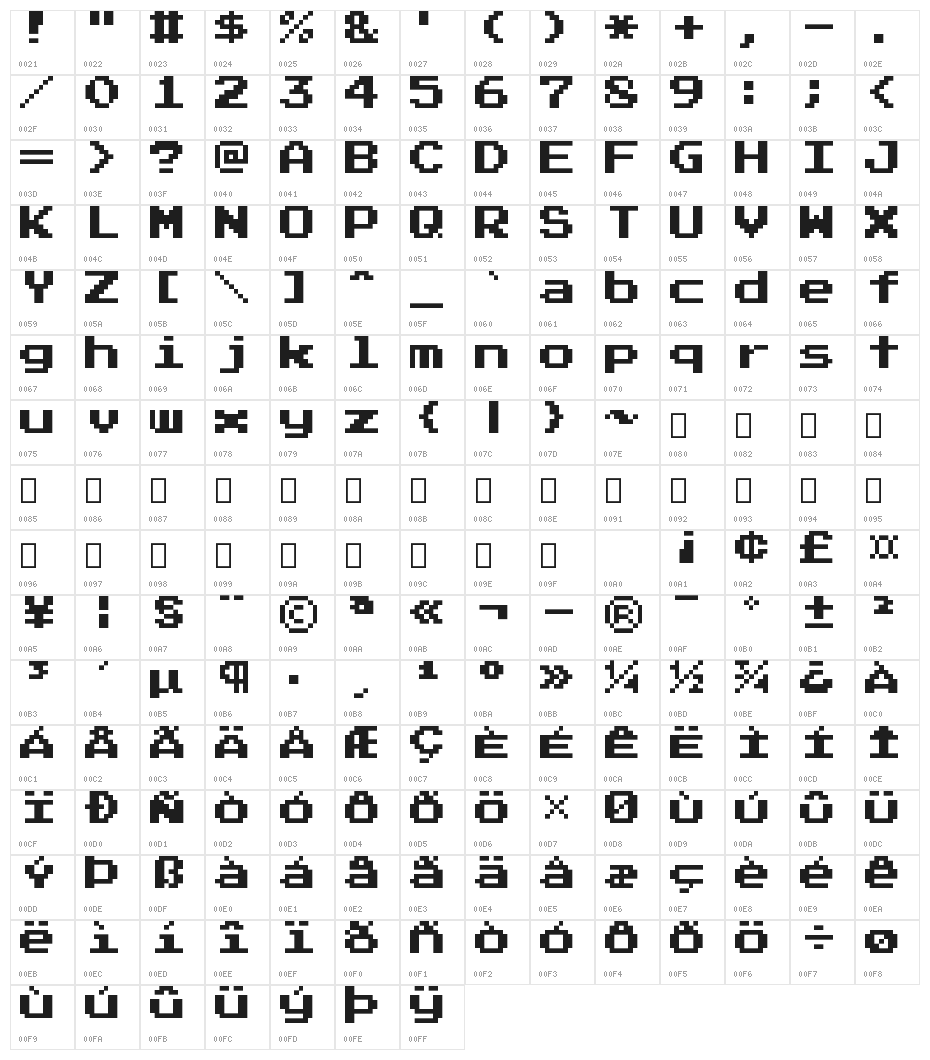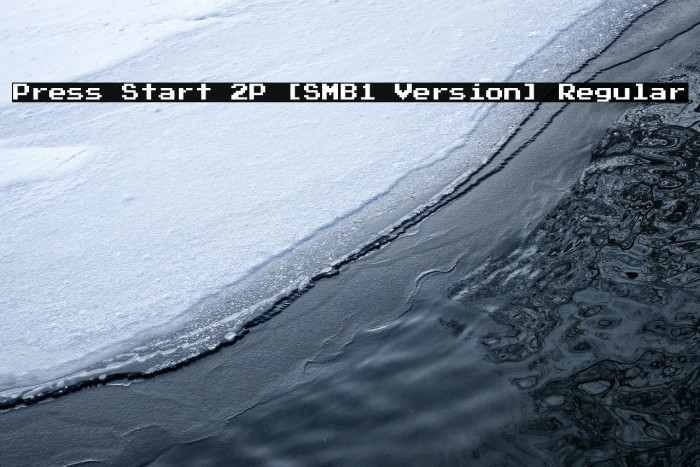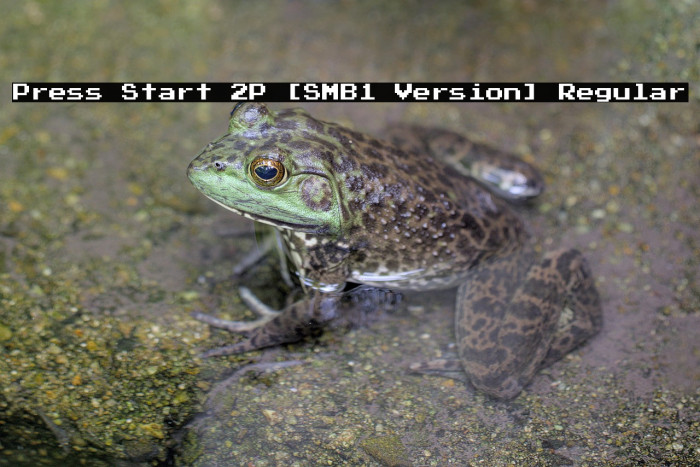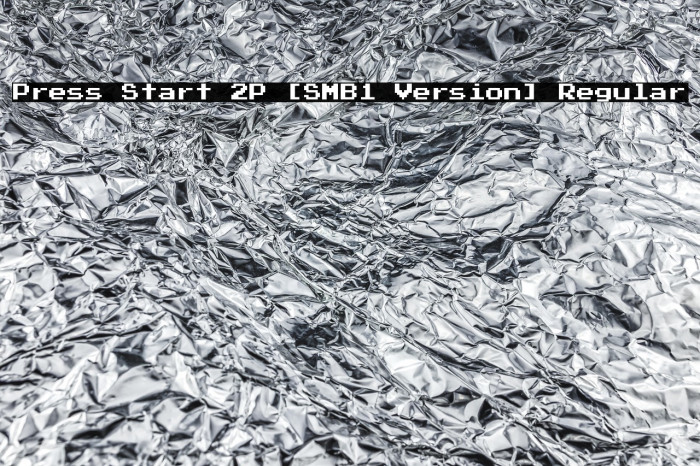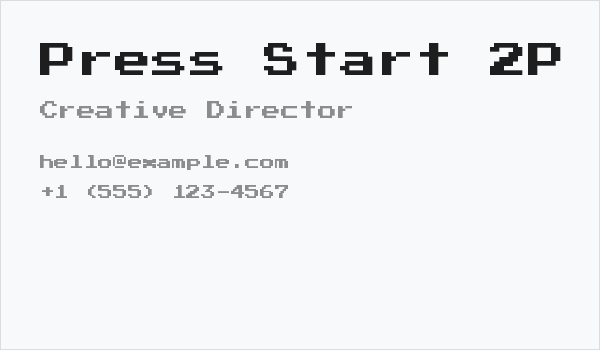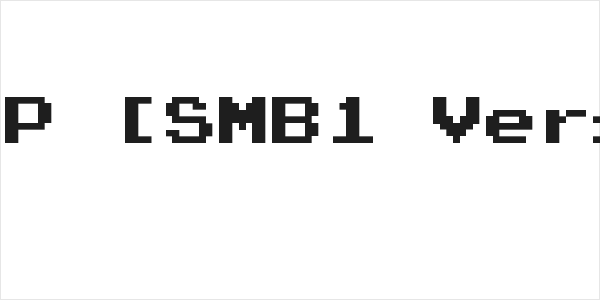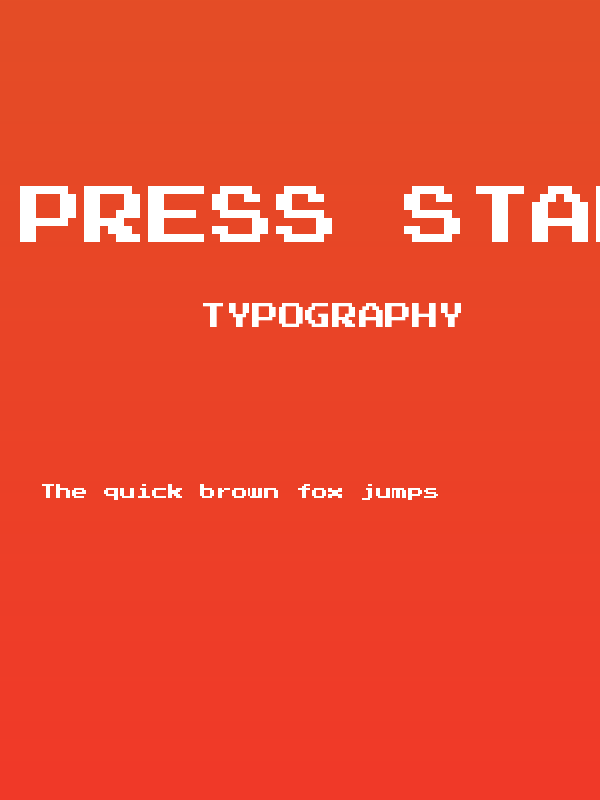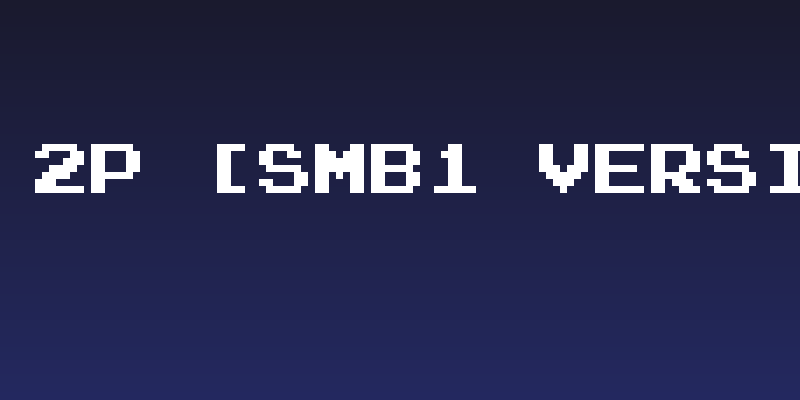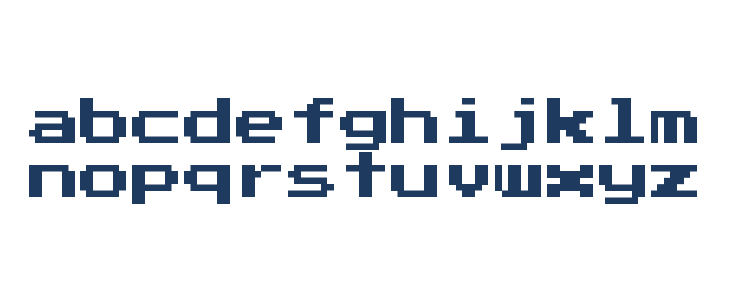
Press Start 2P [SMB1 Version] Regular Font
Press Start 2P [SMB1 Version] Regular Description
This font embodies a retro, pixelated style reminiscent of early video game graphics. Its blocky, monospaced characters are designed with a uniform grid-like structure, giving it a distinctly digital appearance. The font captures the essence of 8-bit aesthetics, making it ideal for projects that aim to evoke nostalgia or pay homage to classic gaming. Each character is crafted with precision, ensuring readability while maintaining its unique, vintage charm. The font's simplicity and boldness make it versatile for various design applications, particularly those that require a strong visual impact.
| Use Case | Headlines, Logos, Digital Art |
| Proposed Projects | Ideal for video game design, retro-themed posters, digital art projects, and nostalgic branding. |